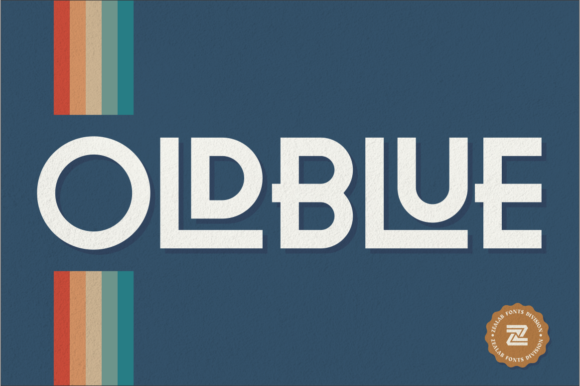
Step into the realm of retro elegance with Oldblue, the captivating display font that exudes a timeless charm. Inspired by the evocative allure of war-time posters, Oldblue is a striking creation by the ingenious minds at Zealab Fonts Division. This remarkable font family transports you back in time with its nostalgic aura and distinctive visual appeal.
Oldblue's meticulously crafted characters exude a unique personality that blends classic aesthetics with a modern twist. Its flowing lines and bold strokes evoke a sense of nostalgia, reminiscent of forgotten eras. Each letterform is a testament to the enduring power of heritage, evoking emotions that resonate deep within the soul.
As you navigate through your creative endeavors, Oldblue serves as your trusted companion. It gracefully adorns logos, demanding attention and leaving a lasting impression on your audience. Let your social media posts radiate charm and elegance as Oldblue effortlessly captivates your followers. Unleash your imagination in magazine layouts, allowing Oldblue's timeless beauty to elevate your designs to new heights.
Delve into the world of Oldblue and discover its versatility. Its intrinsic charm seamlessly adapts to a myriad of creative projects, from captivating posters to enthralling book covers. With Oldblue as your creative ally, the possibilities are endless.